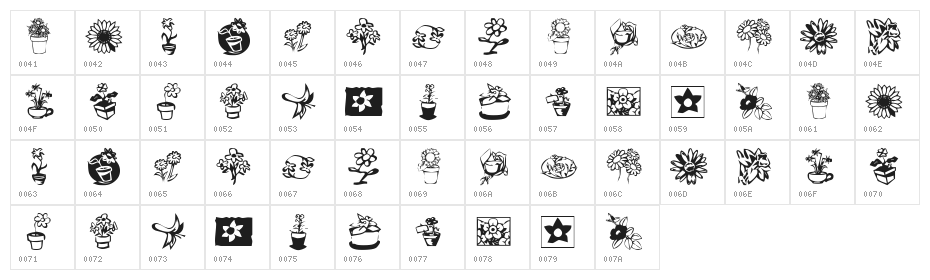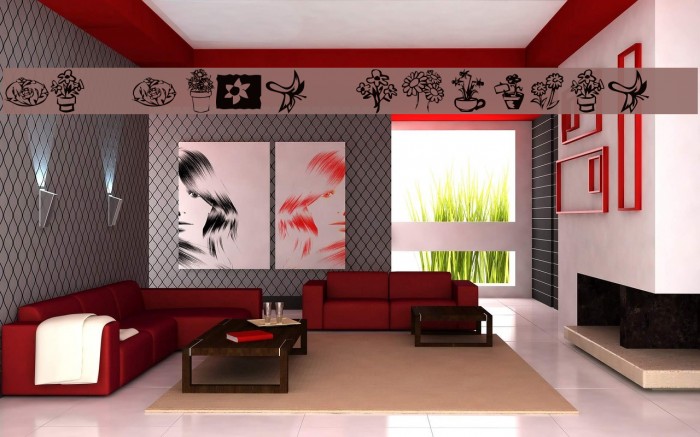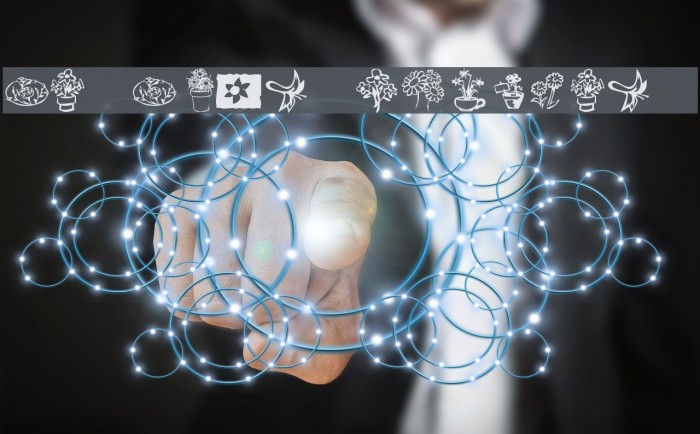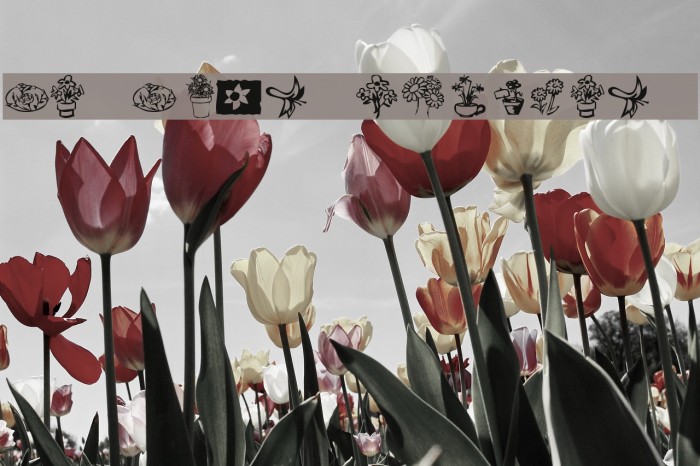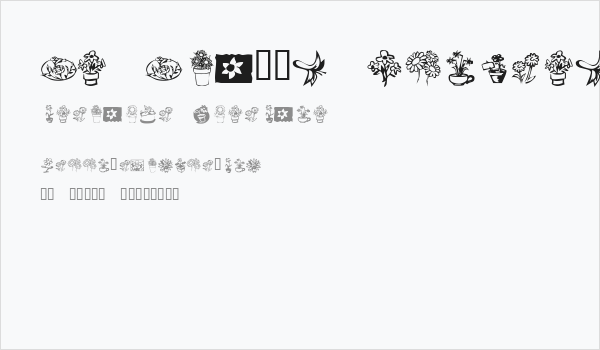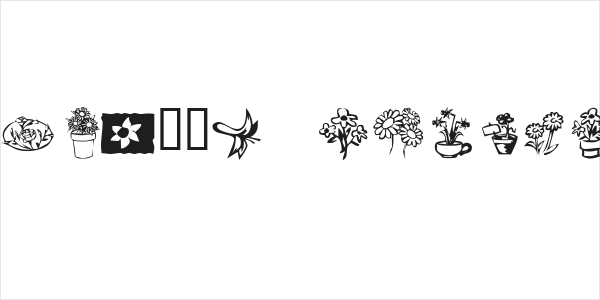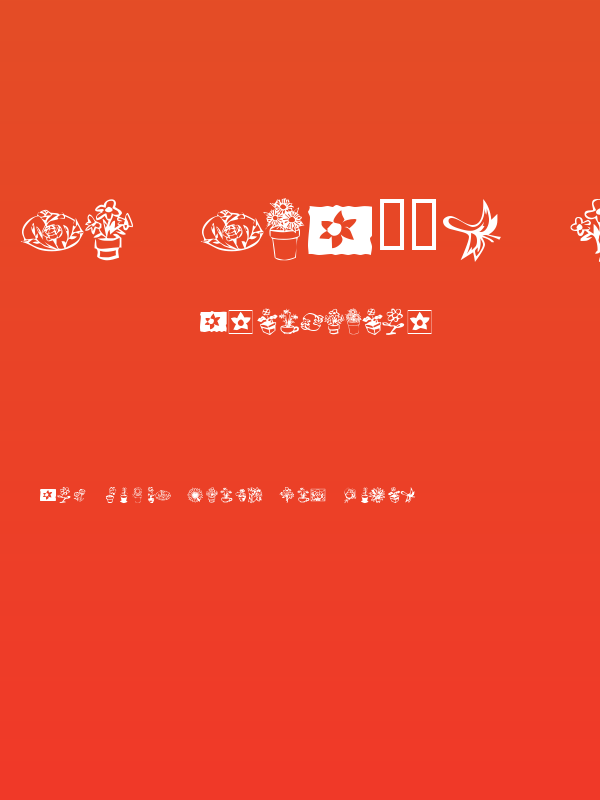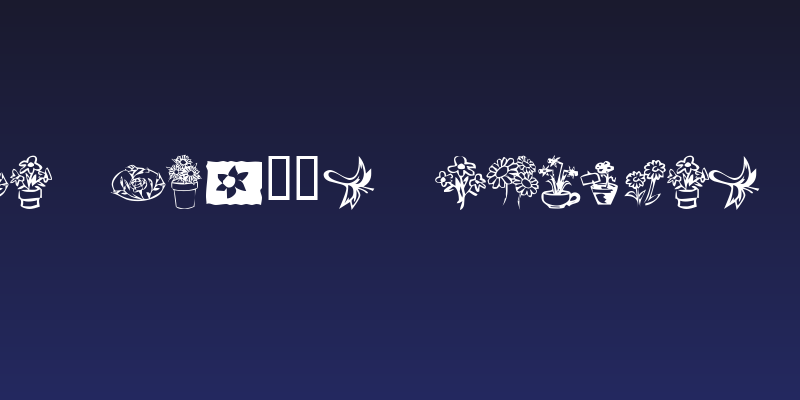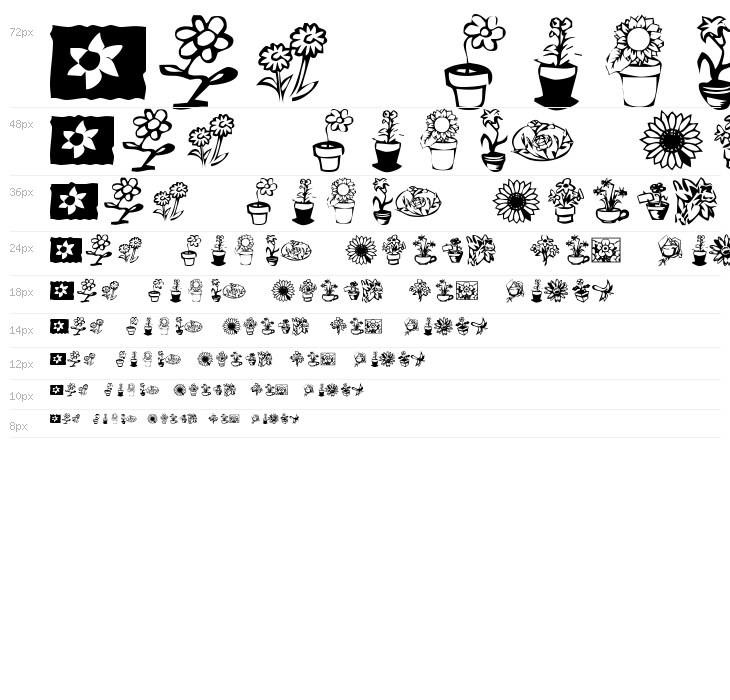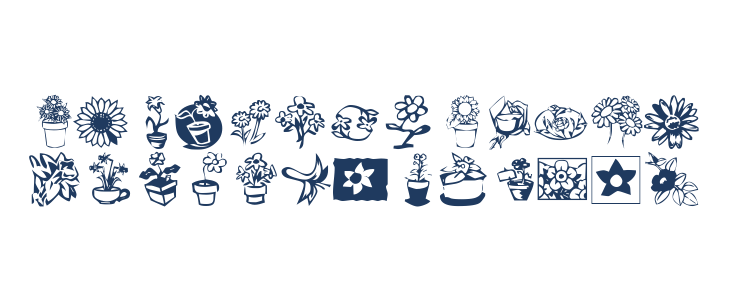
KR Kat's Flowers 3 Font
KR Kat's Flowers 3 Description
This is a decorative font featuring a variety of floral illustrations. Each character is represented by a unique flower or plant design, ranging from sunflowers to potted plants. The designs are intricate and detailed, capturing the essence of different types of flowers in a playful and artistic manner. The font is visually engaging, making it suitable for creative projects that require a touch of nature and elegance. The characters are well-defined, with each floral illustration offering a distinct visual appeal.
| Use Case | Logos, Decorative headings, Artistic projects |
| Proposed Projects | Ideal for greeting cards, wedding invitations, botanical-themed posters, and nature-inspired branding. |